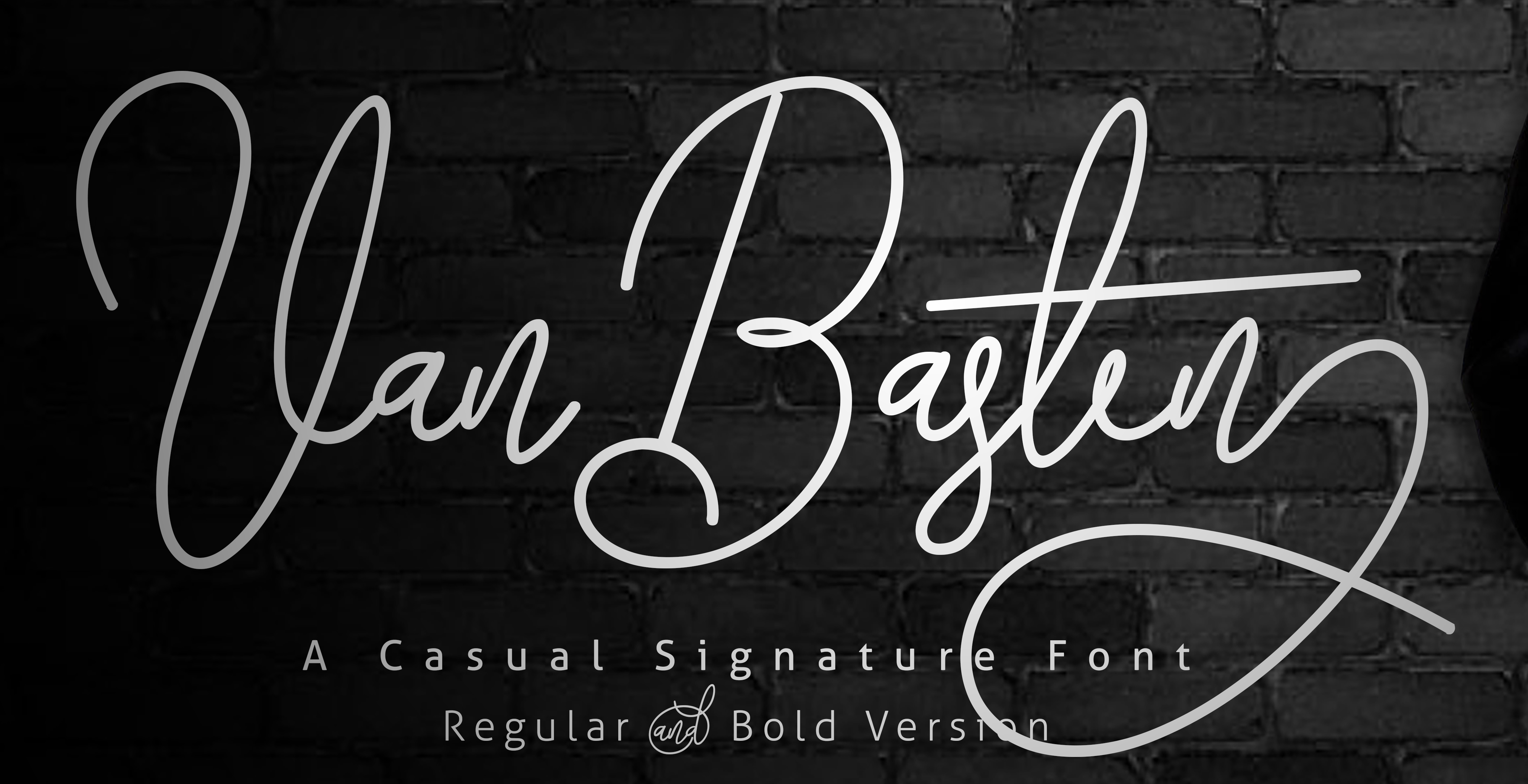
Zet Design (or: Afredo.fk, or: Seventype) [Ahmad Zulfikar Ali]
Surabaya, Indonesia-based designer (b. 1988) of the brushed font Carocks (2019), the children's book font Kidplay (2019, at Zet Design), the 3d sketched font Doodletoon (2019), the futuristic typeface Allegias (2019, at Zet Design), the curly typeface Chattelyne (2019), the leafy font Green Nature (2019) and Arrowman (2019: gothic).
Also, as there are perhaps two Zulfikar Ali's, the Aceh, Indonesia-based designer (b. 1990) of these script typefaces in 2017: Cumtbum (or Camtbum), Vathina Script (calligraphic), Alif Script. In 2018, he designed the signage script typefaces Dealova, Parent, Norty, Alongtime Script, and Alakita, as well as the decorative typeface Singel Parent Serif and the thin script Van Basten. In 2019, he designed the creamy brush scripts Insting, Camping and Wanita, the modular typeface Batavia Glamore, the wooden plank font Woodyssey, the horror brush script Realiztix, and the monoline scripts Daddy Doctor, Batavia Glamore Script and Dirgantara.
Typefaces from 2020: Resolve, Khansa (an inky signature script), Hino Nagata, Roster, Estika (a brush script), Queen Mestalla (ornamental, Tuscan), Birthy (a decorative serif), Willgive (a display family), Alterous Display, Alterous Text (a bold, perhaps threatening, vintage typeface), Queenzy, The Brothers (exaggerated decorative), Funboo (a Halloween font), Restrick (a heavy decorative serif), Scratoon (a scratchy font), Pentoon, Doodletoon Pencil (3d, sketched), Aquaboy, Cartoonic (a bold monoline cartoonish font), Justheros (a bold display typeface), Quinlophe (a Valentine's Day font), Goodbees (a retro signage script), Radhistone (a florally decorated serif), Magnitudo (a signage script), Cute Frog, Kachong, Sakalangkong, Madina, Online.
Typefaces from 2021: Wedef (a creamy signature script), Broost (a groovy script), Nugetto (a curly magic mushroom font), Quegos (a lava lamp font), Blastand (a techno typeface), Racesky (a speed font), Qoutiens (a signature script), Scratchman (a sketched font), Gerush (a fingerprint font), Grandix (a fat finger font).
Typefaces from 2022: Stellafox (a stylish brush font).